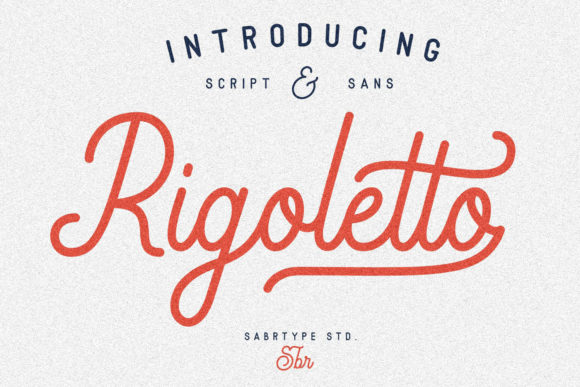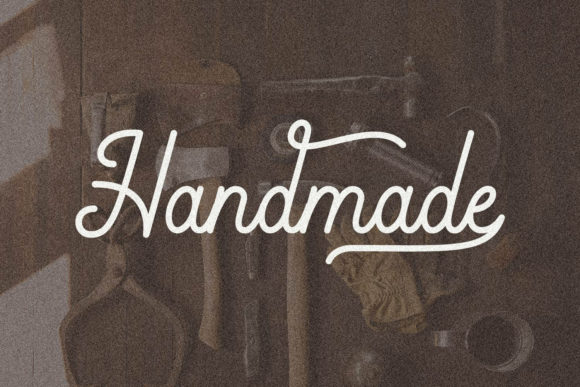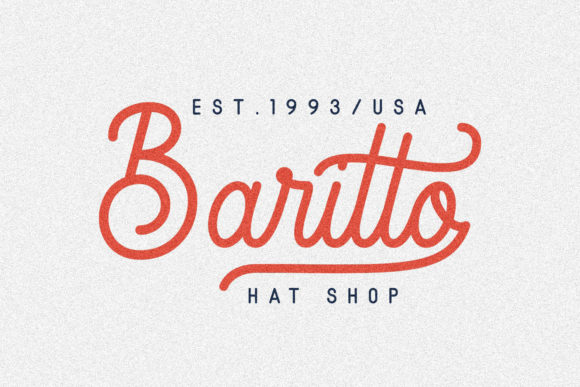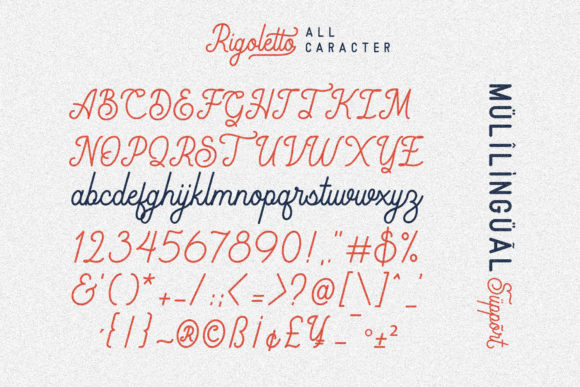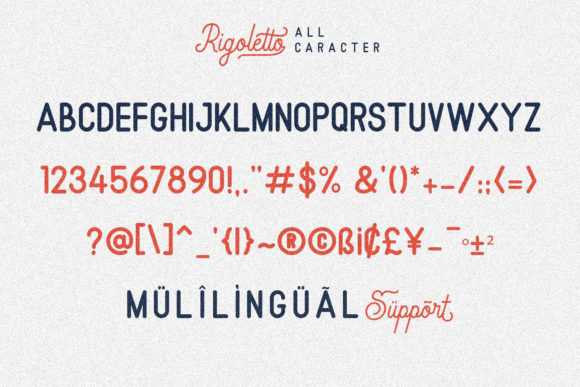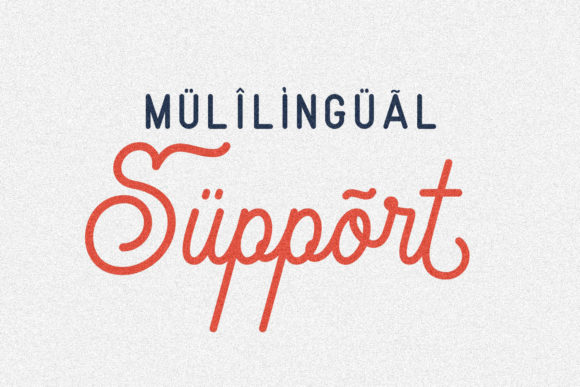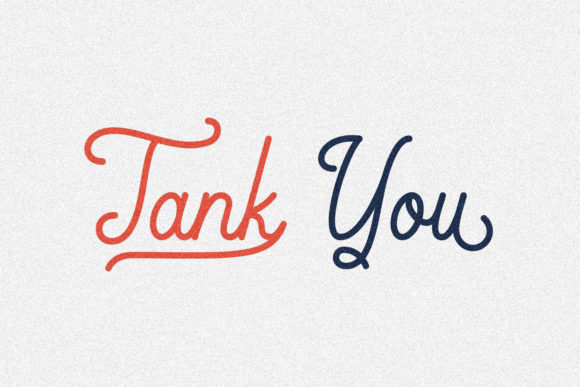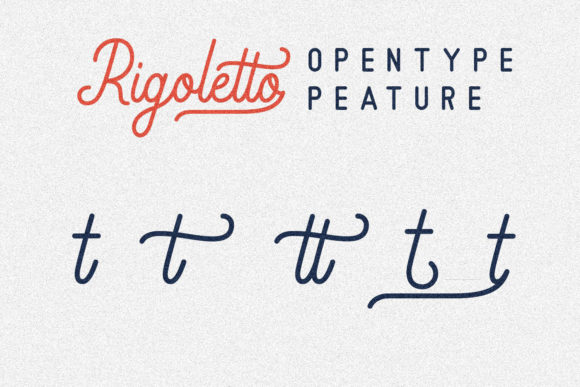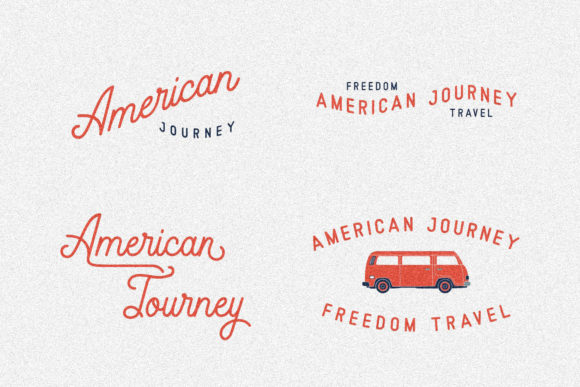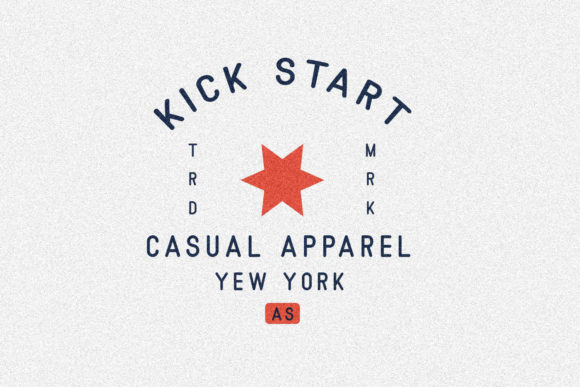
Rigoletto Script Font
About Rigoletto Script Font
The Rigoletto is a monoline script font. It has an elegant feel but will also add some playfulness to your designs.
It’s suited for logotypes, wedding invitations, Vintage labels, romantic cards and others.